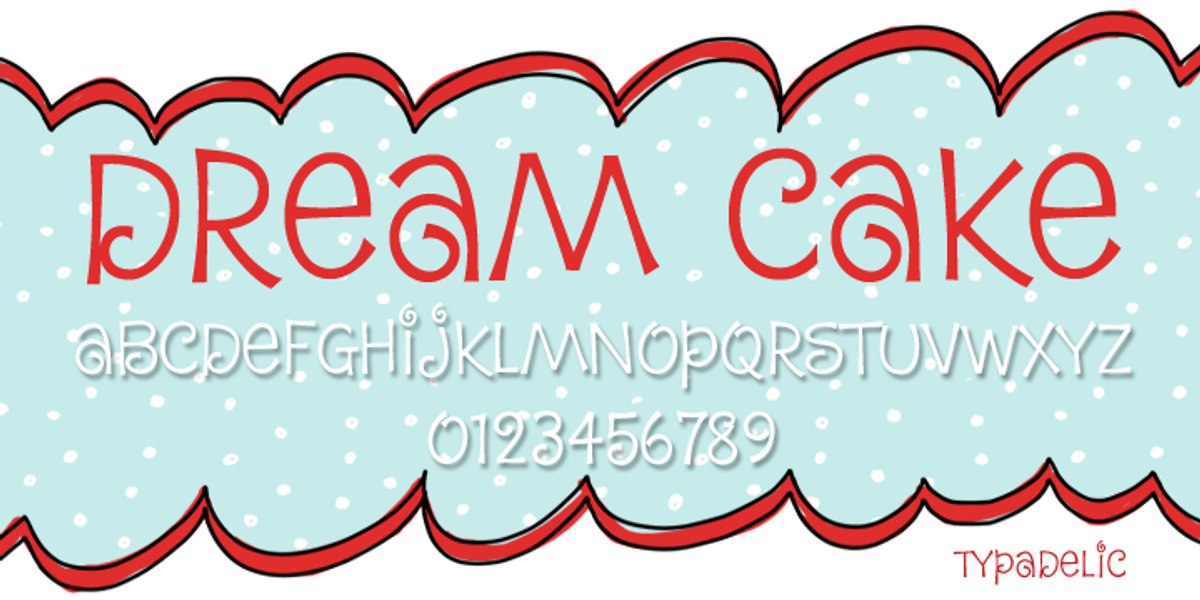
Dream Cake
Dream Cake is a whimsical hand-drawn script font inspired by the delicious confection of the same name. Its casual and quirky nature makes it ideal for branding, illustrations, and hand-lettering projects where a touch of fun and personality is desired.